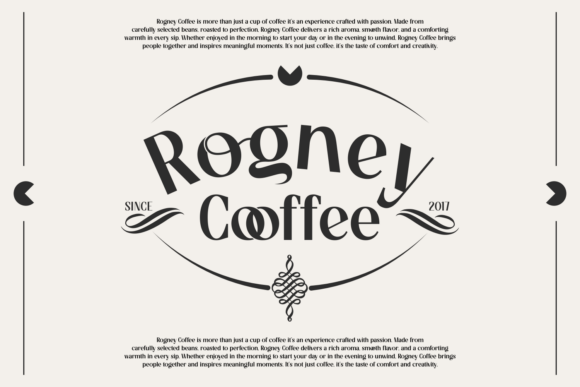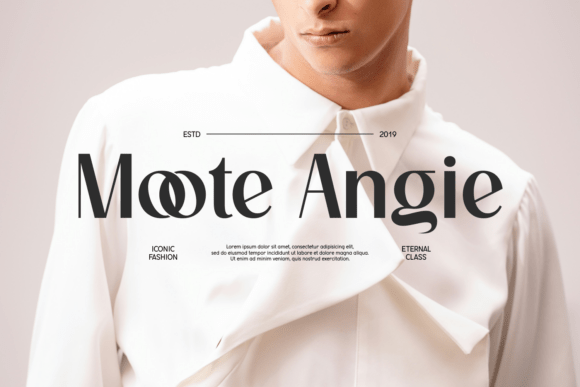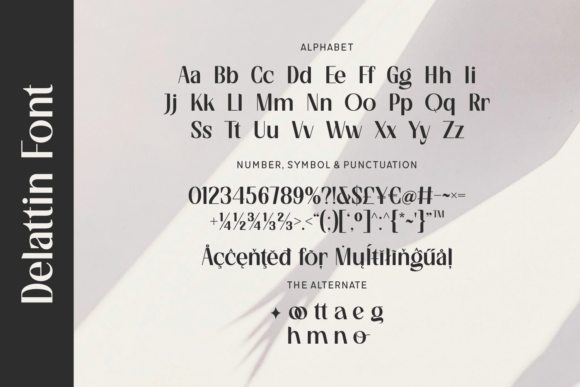
Introduction to Delattin Font
A promotional image for β€œDelattin,” a modern and elegant sans serif typeface.
Small star sparkles accent the text, adding a touch of magic to its refined character The typeface is noted to include alternate and ligature options, making it a versatile choice for high-end branding, logos, and fashion editorials.